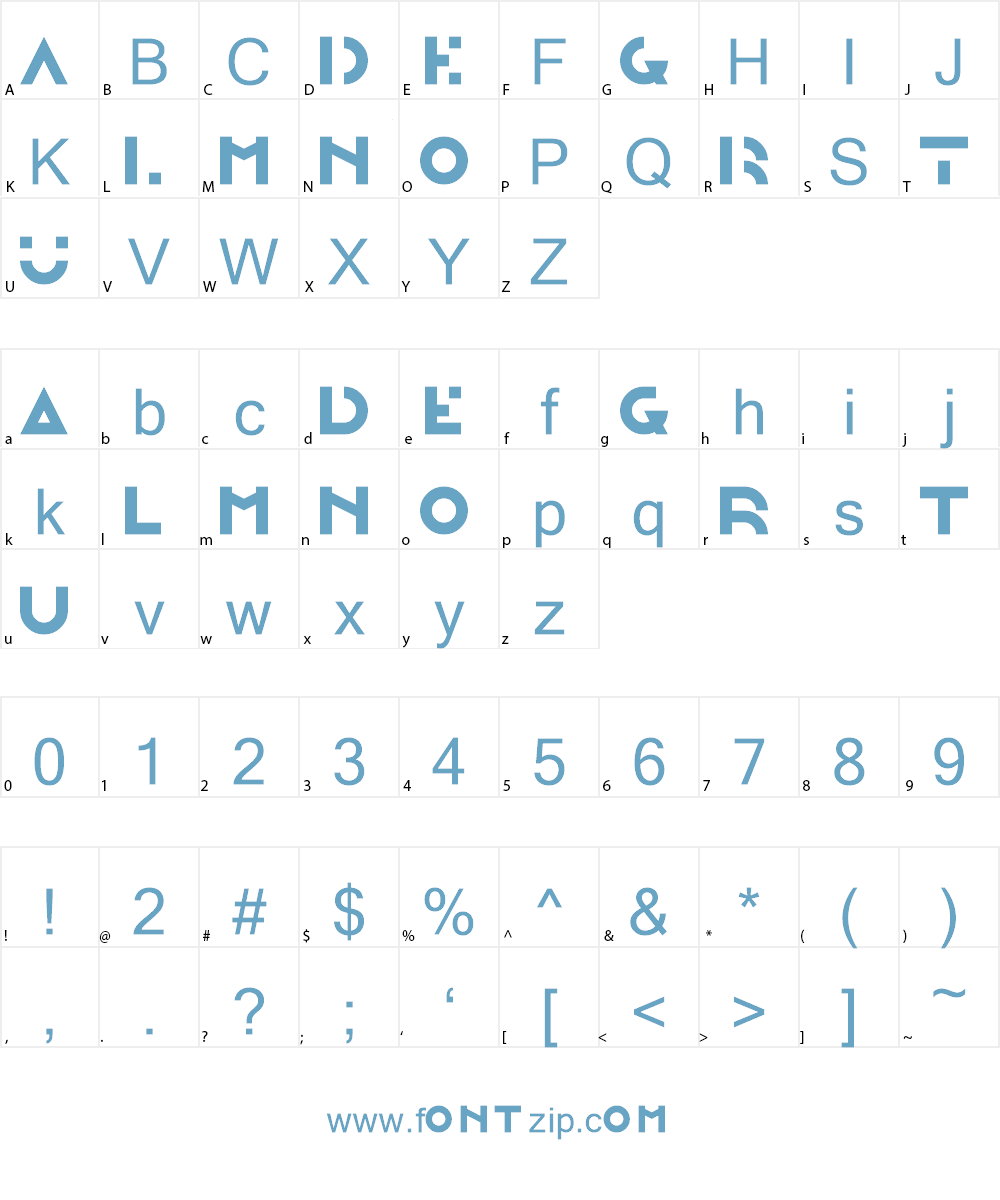
The is an ultra-modern decorative sans serif inspired by the work of Angelica Baini and Marco Oggian. Uppercase letters are more airy than the lower case letter set. I've also included a number set, European character support, and sub/superscript characters, a total of 351 glyphs!